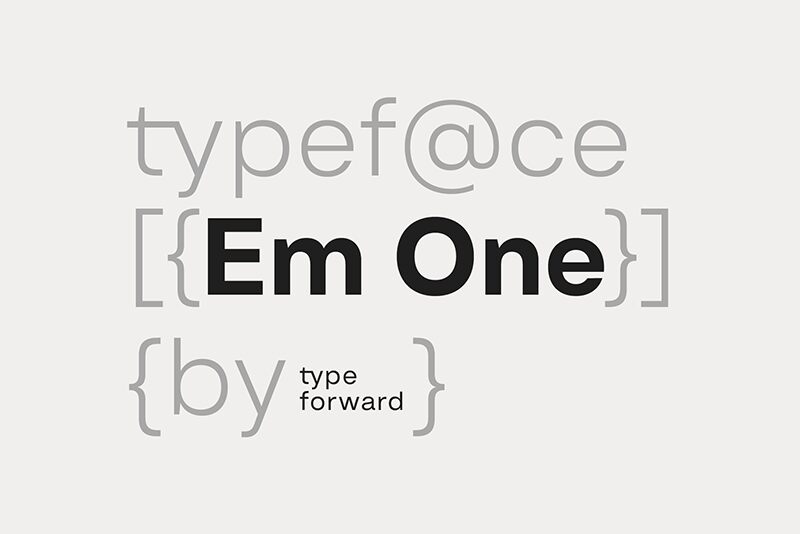
Em One SemiBold font by Type Forward Foundry embodies clean, modern aesthetics with minimalist and geometric influences. This free sans serif font is a sophisticated addition to any design project, offering an elegant simplicity that easily catches the eye. Em One SemiBold is characterized by straight cuts, smooth angles, low contrast between strokes, and a rectangular tail which are all unbelievably clear in their harmony of presentation.
Use this font for your banners, posters, greeting cards and invitations or include it in branding designs such as logos. Websites and mobile applications will also benefit from its clarity as will magazine/book/newspaper covers or body texts alike.
Design Approach:
Em One is the first typeface developed in collaboration with our colleague Luboslav Boyanov, a graduate of the National Academy of Art Sofia. Our goal was to create a functional typeface with a broad range of applications, from web and print to branding, editorial work, and various design contexts. It embodies the distinctive character and aesthetics of classic Swiss typefaces while maintaining a straightforward design.
Distinct Features:
Key features of Em One include a tall x-height, minimal contrast between strokes, and moderate proportions that enhance readability. Refined letter spacing amplifies the overall appearance, while distinctive elements in some letters add character without introducing excessive visual noise. This balance makes Em One both versatile and aligned with graphic identity.
Font Family Composition:
Em One offers 9 weights ranging from Thin to Black, each accompanied by its italic version. It is available in refined OTF, TTF, and web font formats. Additionally, a variable font format provides greater flexibility for dynamic solutions.
Technical Specifications:
Designed for a broad audience, Em One supports over 220 languages, including extended Latin and Cyrillic scripts. It features an array of typographic options such as ligatures, stylistic sets, contextual alternatives, and various OpenType attributes.
Usage:
Em One is multifunctional and adaptable; its different weights can serve as standalone elements or complements within design systems. Thicker weights are ideal for headlines and display elements, while middleweights are optimized for text blocks. Designed for screen performance as well as print use, Em One effectively balances glyphs and negative space across all media.
Summary:
Em One is a practical sans-serif typeface inspired by popular Swiss designs from the mid-20th century. As a multipurpose font, it excels in both display contexts and functional applications while remaining recognizable and characterful throughout its usage.